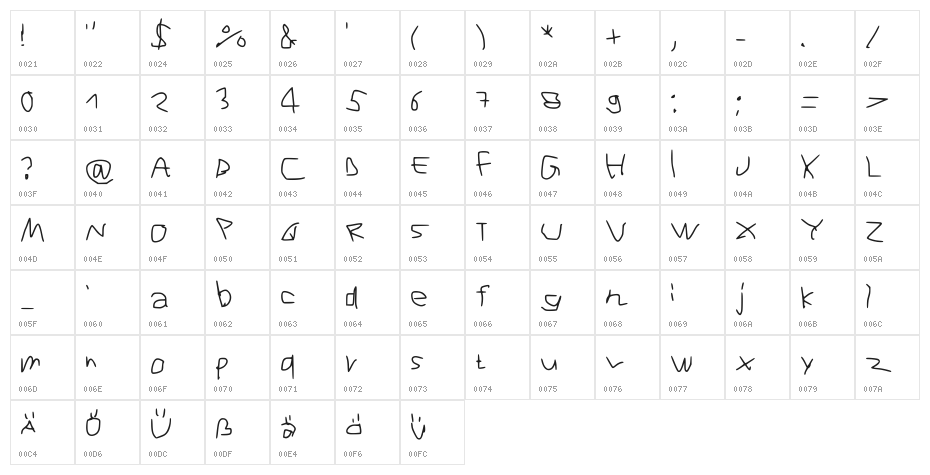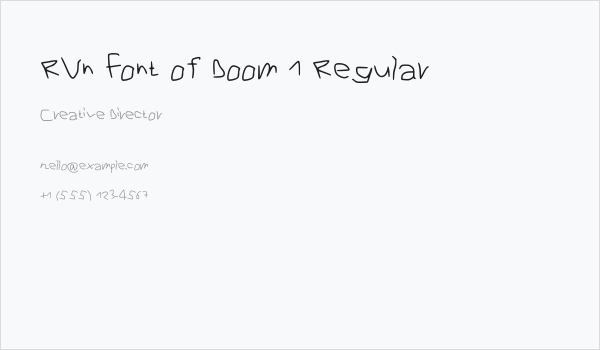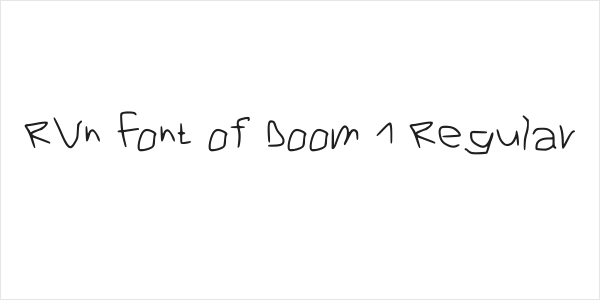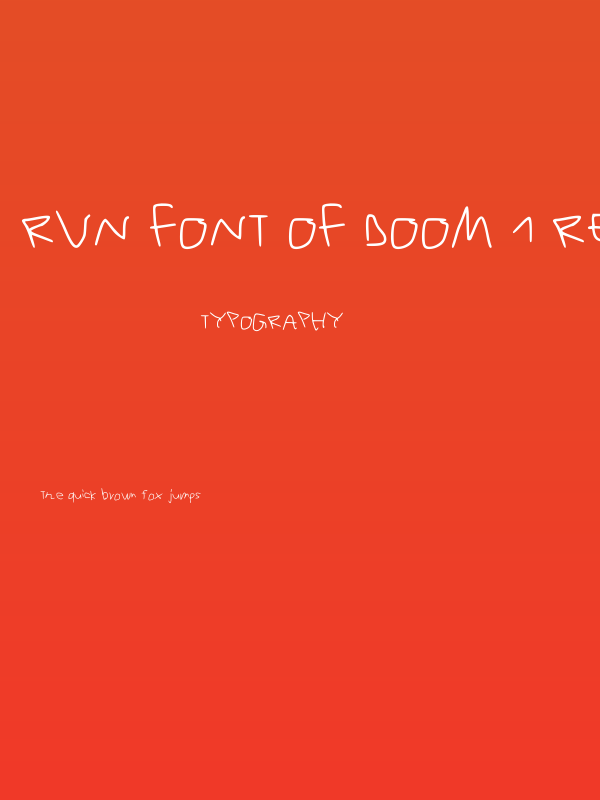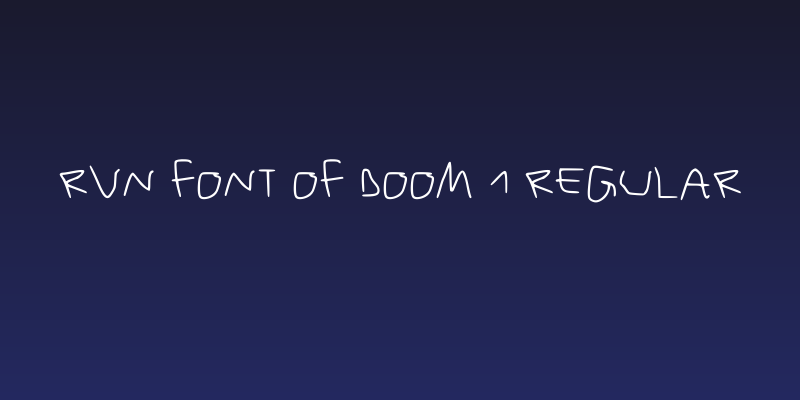
RVn Font of Doom 1 Regular Font
RVn Font of Doom 1 Regular Description
This font exudes a raw, hand-drawn aesthetic with an irregular and playful character design. Each letter appears to be crafted with a spontaneous, almost chaotic energy, giving it a unique and expressive personality. The strokes are uneven, with varying thicknesses that add to its dynamic and informal style. The uppercase and lowercase letters maintain a consistent theme, while the numerals and special characters follow suit with their quirky, unconventional forms. This font is ideal for projects that require a touch of individuality and creativity, making it perfect for artistic and experimental designs.
| Use Case | Logos, Posters, Creative projects |
| Proposed Projects | Ideal for artistic projects, experimental designs, and creative branding. |